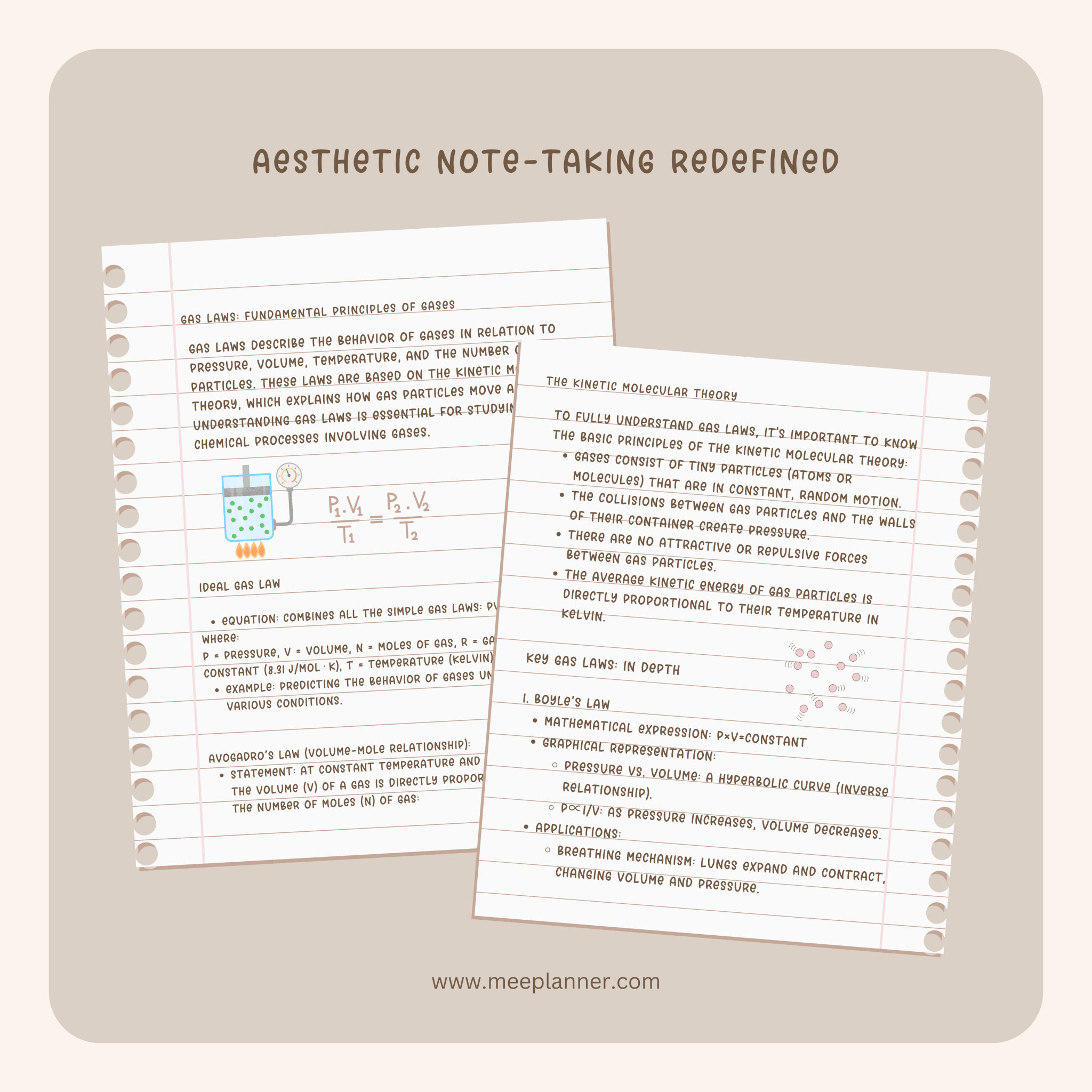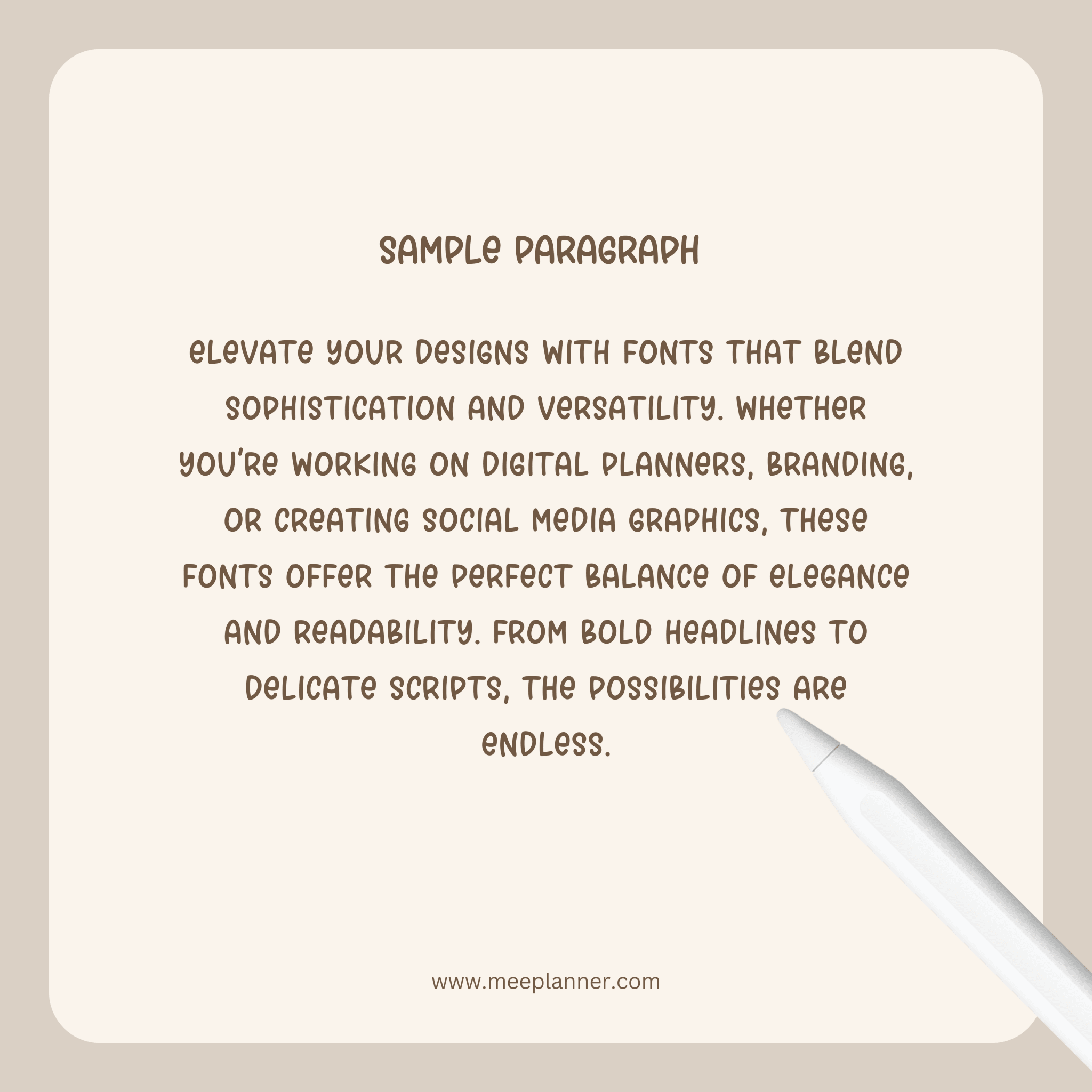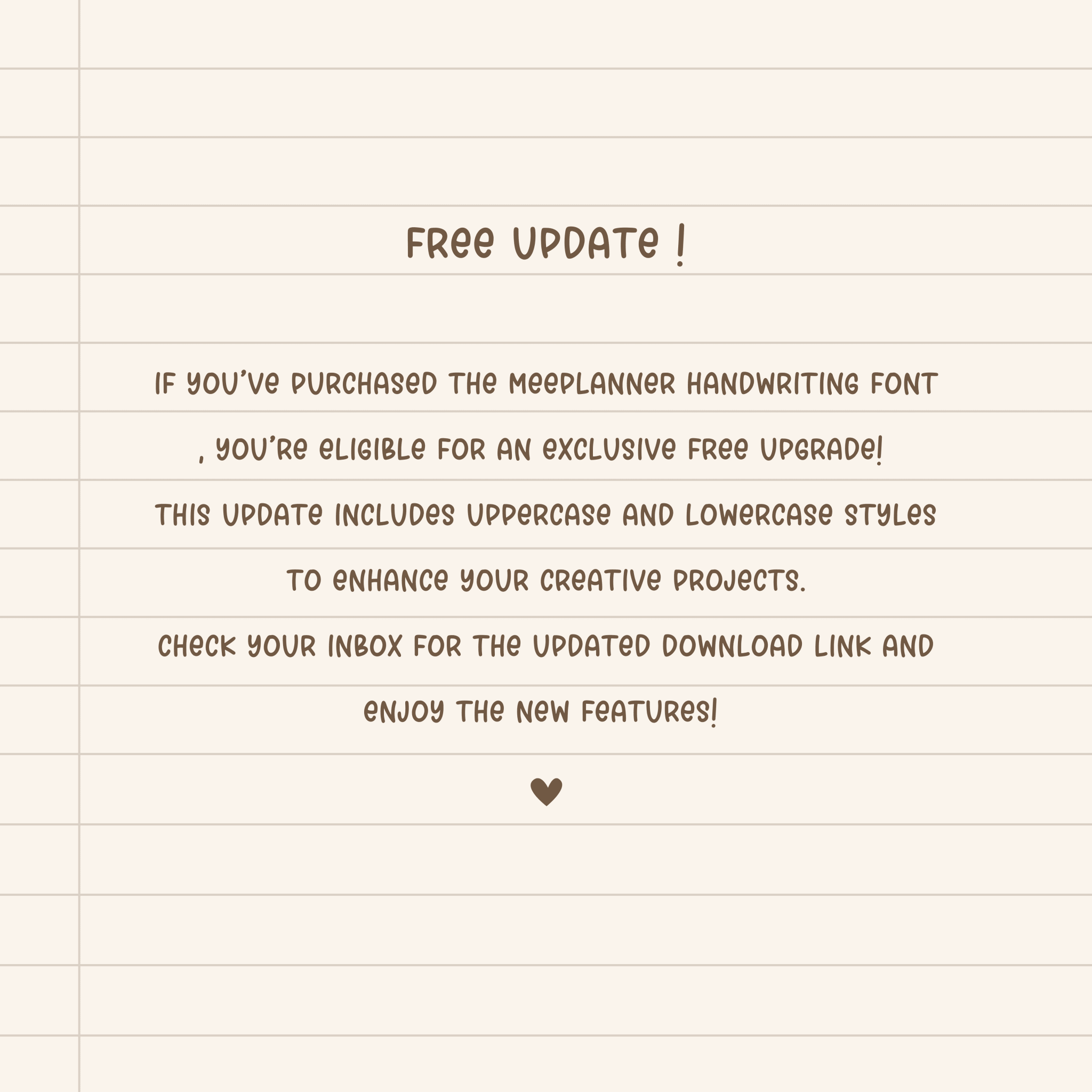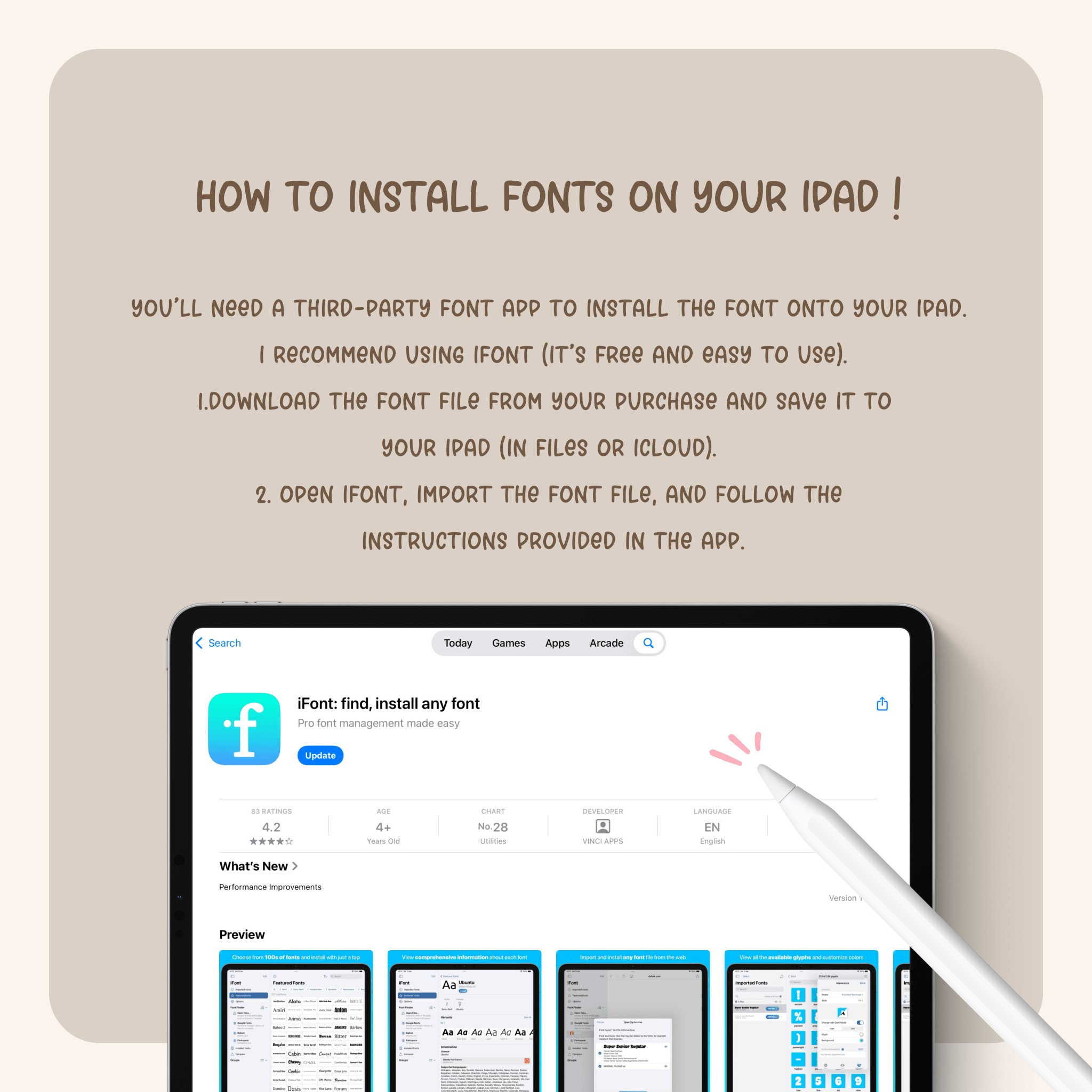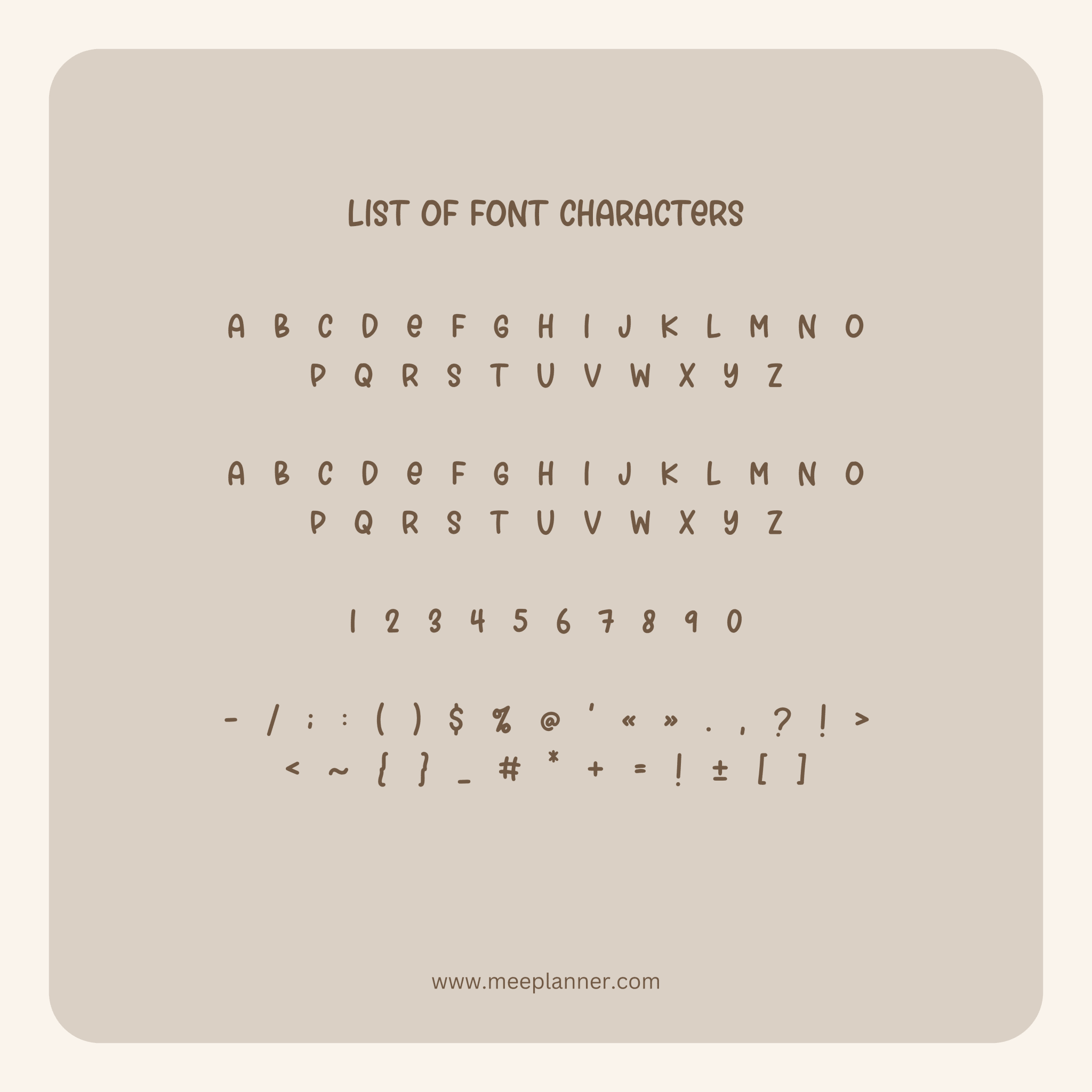
Enhance your digital planner
Transform your daily planning experience with our aesthetic handwriting font, crafted to bring a personal touch to your notes and schedules. Perfectly designed for a digital planner font, it integrates smoothly with all major planning apps. The result is not just functionality but also an enjoyable aesthetic that will make you look forward to organizing your day.
Achieve the handwritten look
This handwritten aesthetic font delivers a natural and artistic appearance to any document. Whether you're crafting a personal journal or preparing creative documents, the elegant script enhances visual appeal without losing legibility. Its balance between beauty and clarity makes it suitable for various writing needs.